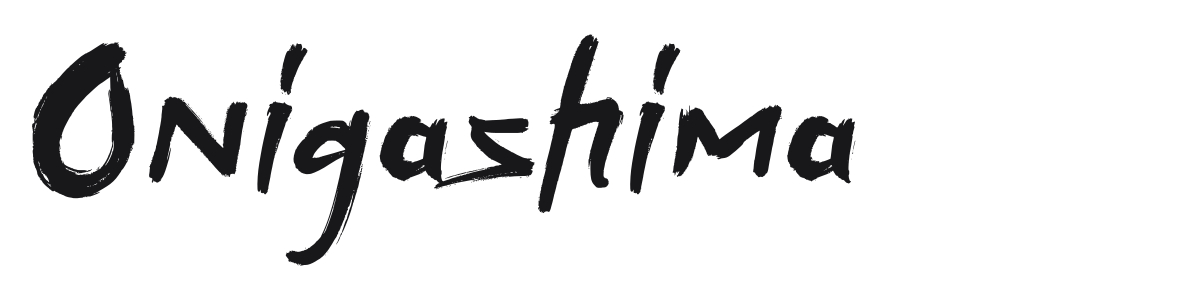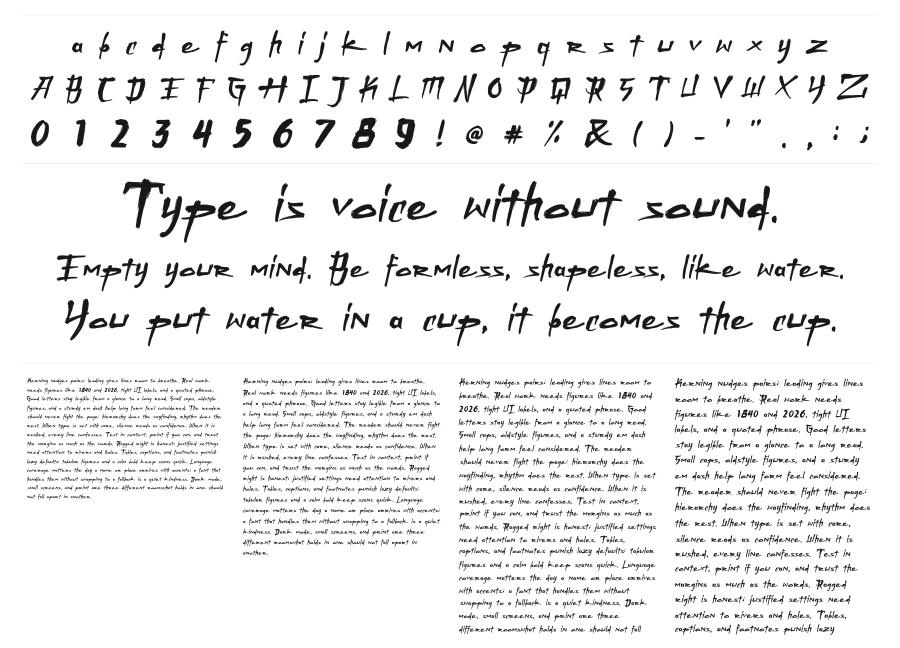
Onigashima
Onigashima is a raw ink-brush script that channels the energy of East Asian calligraphy with a rough, street-art edge. Thick sweeping strokes break apart into frayed, splintered hairlines, giving every word the feel of a freshly inked brushstroke. The result is bold and kinetic, built for posters, game titles, and anywhere a design needs visceral impact.